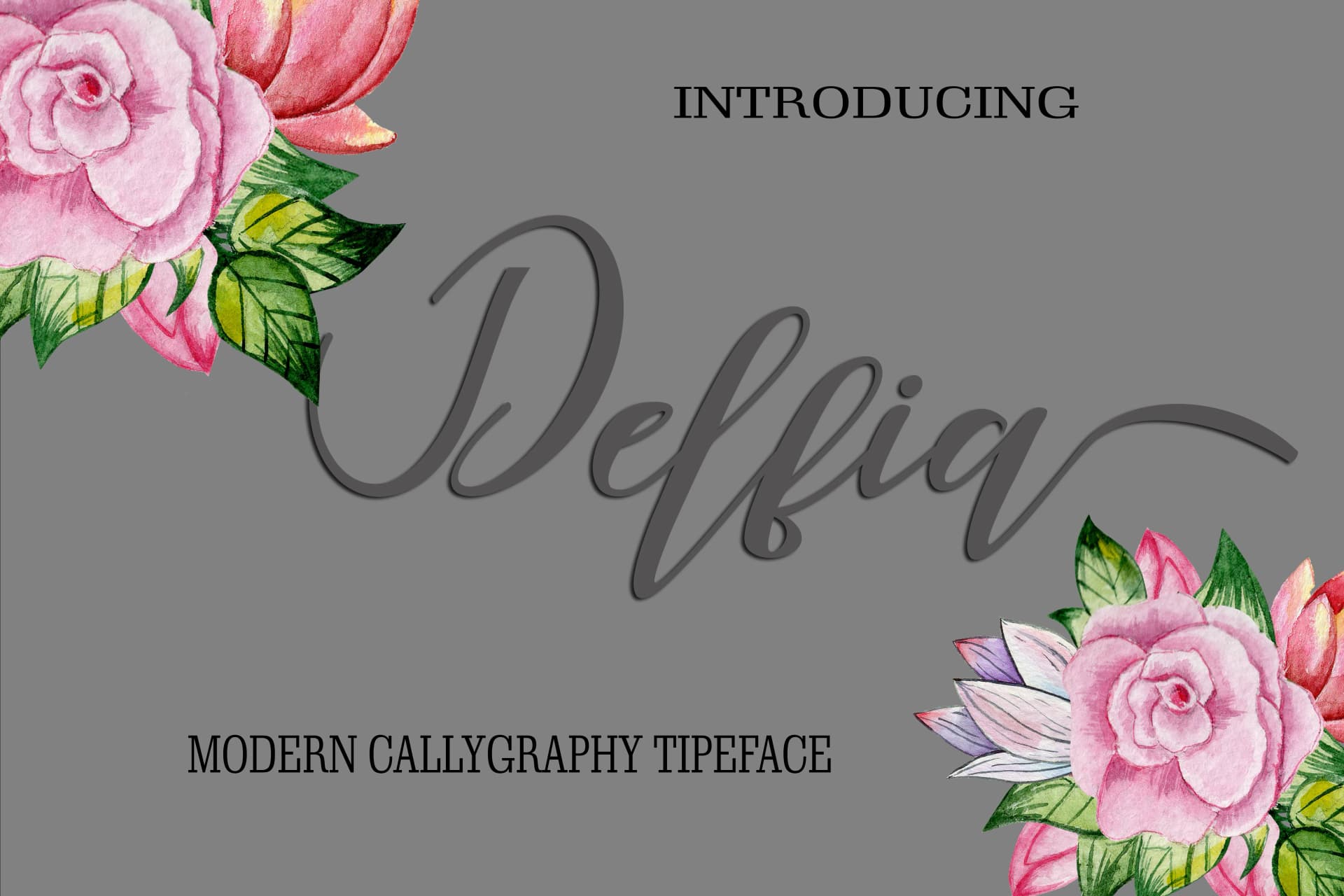
Delfia by maydhen studio is a handwritten script typeface that bridges authentic hand lettering with the technical precision professional designers demand. Its organic letterforms and flowing strokes capture the essence of genuine penmanship while maintaining excellent legibility across digital screens and print, a genuine alternative for those seeking personality without sacrificing clarity. This typeface shines wherever a personal touch strengthens brand identity and customer connection. Wedding invitation suites and engagement announcements gain sophistication from Delfia's graceful character, while boutique packaging labels and artisan product branding use its natural aesthetic to create memorable unboxing experiences that stand out in e-commerce contexts. The font works equally well for event stationery, custom greeting cards, and DIY craft signage, projects where handcrafted appeal directly influences customer perception. Beyond physical media, Delfia performs beautifully in social media brand systems and digital marketing materials where authentic-looking design helps businesses connect with their audience. The comprehensive character set supports multiple languages and renders consistently across devices and sizes, making Delfia dependable for both single projects and developing cohesive brand identity systems. Whether you're a small business owner, independent designer, or creative team needing a versatile script that maintains personality at every scale, this typeface delivers the flexibility you need. Get Delfia on Creative Fabrica and bring handcrafted character to your creative work.
- Elegant, Flowing, Delfia
Delfia Font is a script font that shines as a display or heading face. Pair it with a clean sans-serif or serif font for body text β the contrast creates a clear hierarchy while the two styles stay balanced and easy to read.